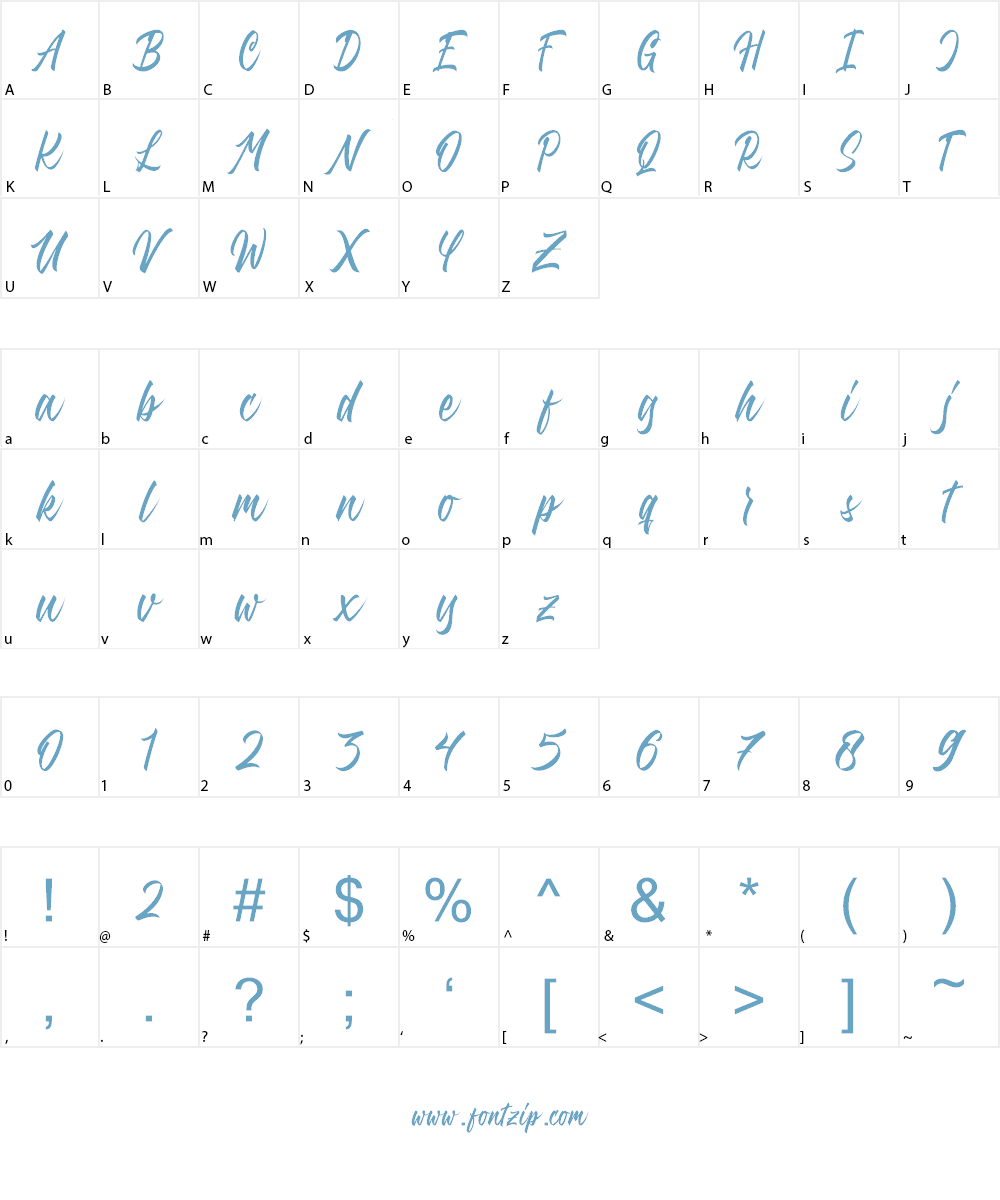
Attina - script romantic font is a font created with brush pen strokes that carry romantic and elegant themes
Attina will be perfect for posters, t-shirts, book covers, packaging, invitations, business cards, quotes and all designs that require soft, romantic, modern and elegant elements
- Ligature
- Alternate